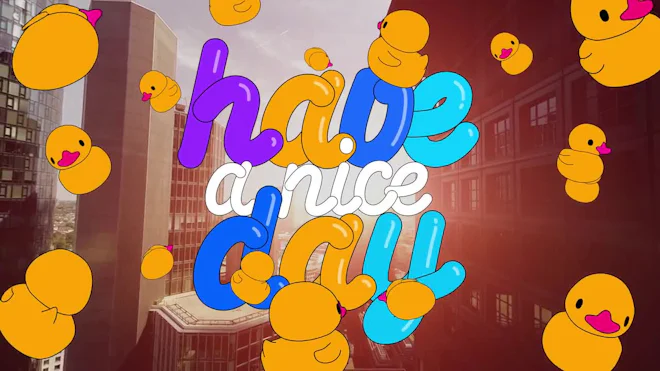
This stock motion graphics video pack includes 78 cartoon stroke line typefaces: the alphabet (2 versions - 1 colored, 1 white), numbers and special symbols on a transparent alpha channel. resolution is 1500x1500.